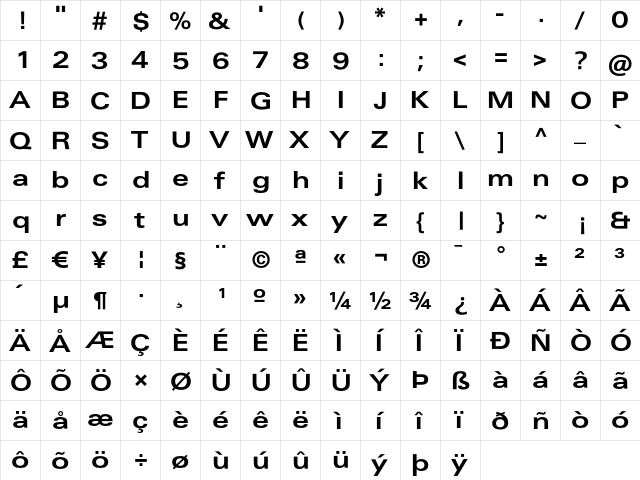
AudiSansExt Bold
Design Context for AudiSansExt Typeface
AudiSansExt offers clean, dependable letterforms without strong stylistic allegiance, making it a practical choice for designers who need flexibility. The heavy weight commands attention and anchors typographic hierarchies.